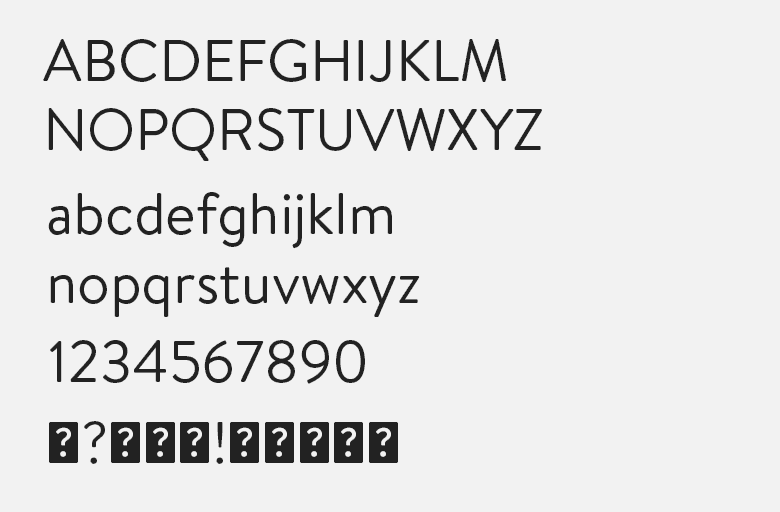
Brandon Text is the companion of a renowned type family Brandon Grotesque. It is optimized to long texts, small sizes and screens, with its x-height higher as compared to the Grotesque version. The fonts are influenced by the geometric-style sans serif faces which were so popular in the 1920s and 30s, but also on geometric shapes that have been optically corrected to be more legible.